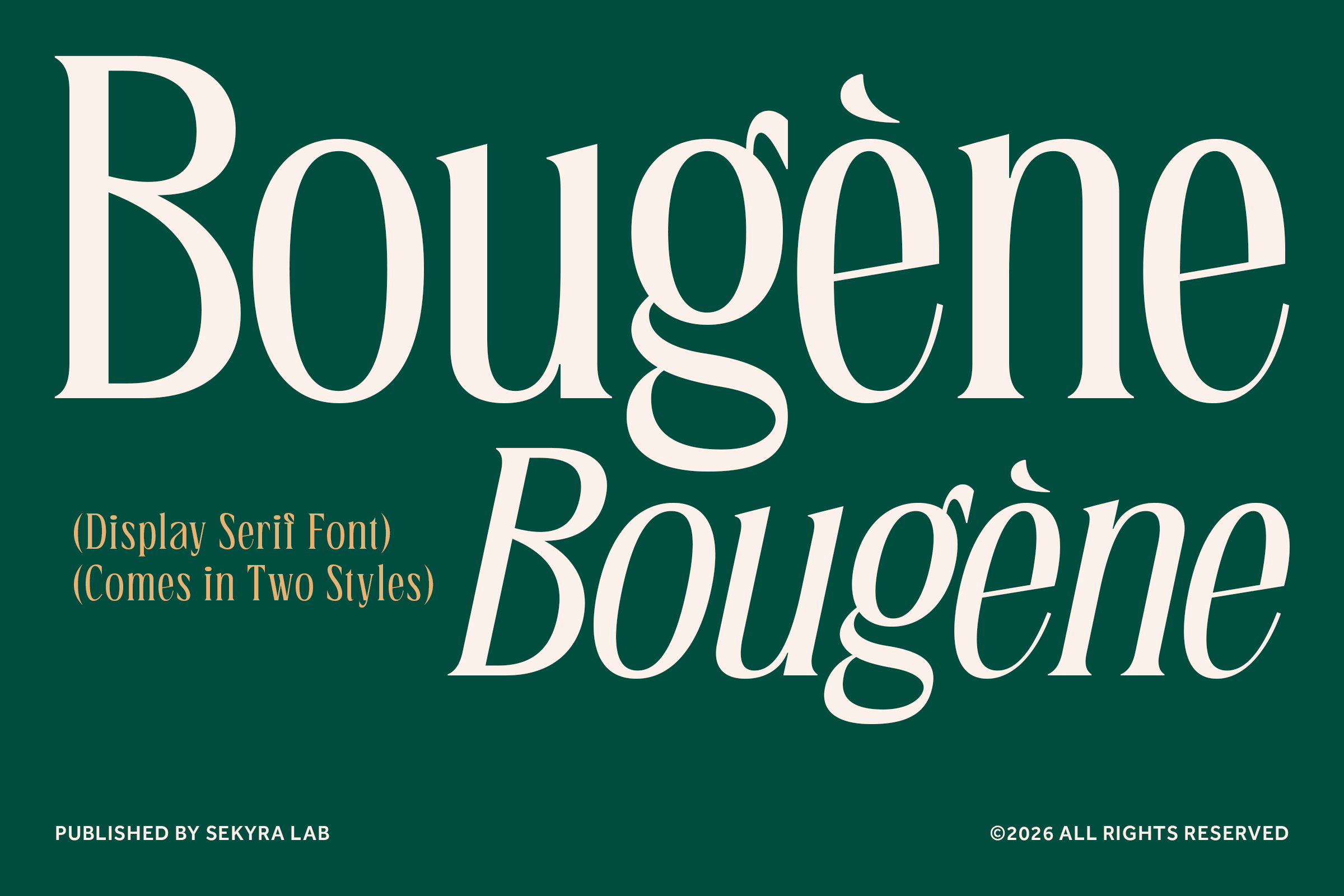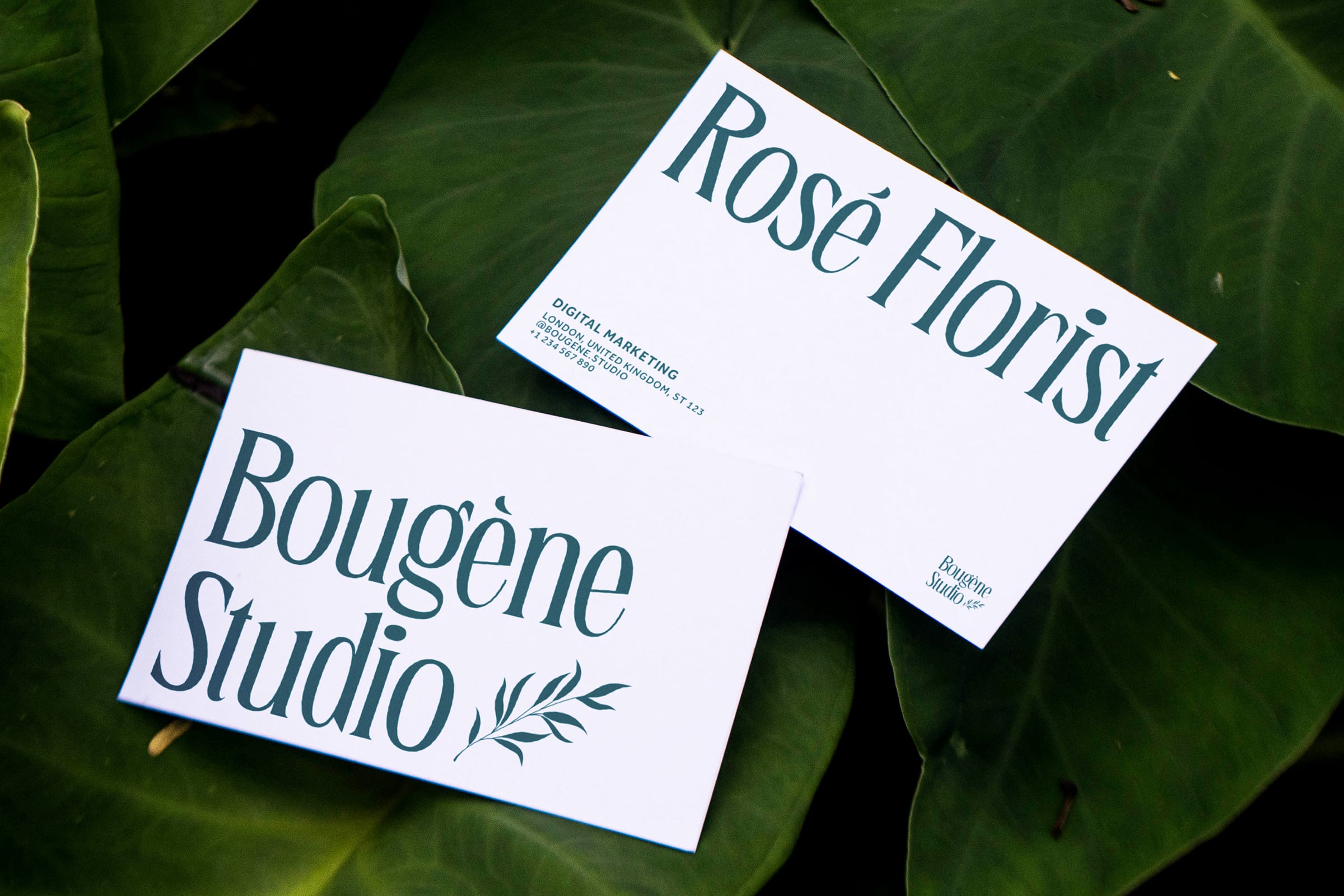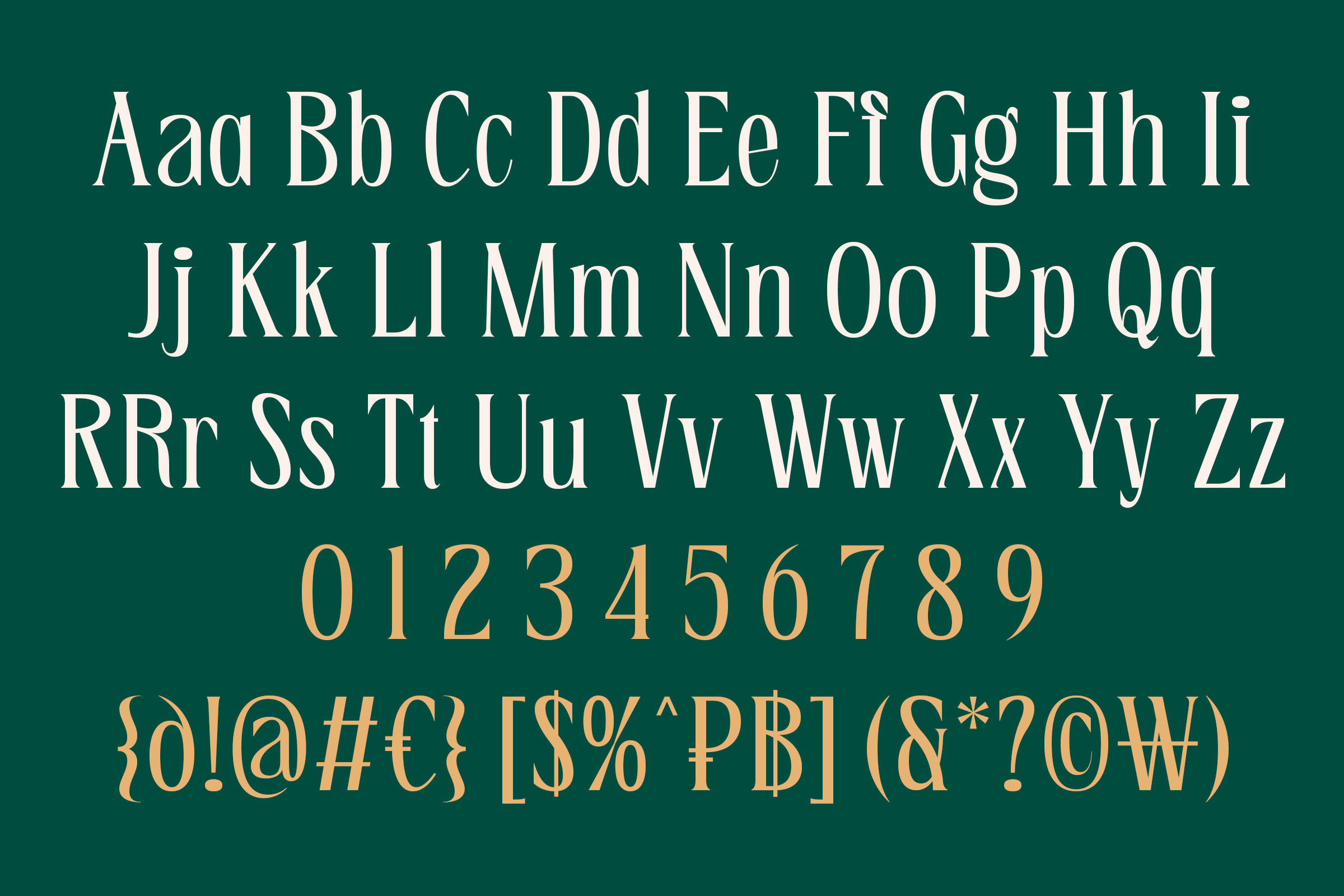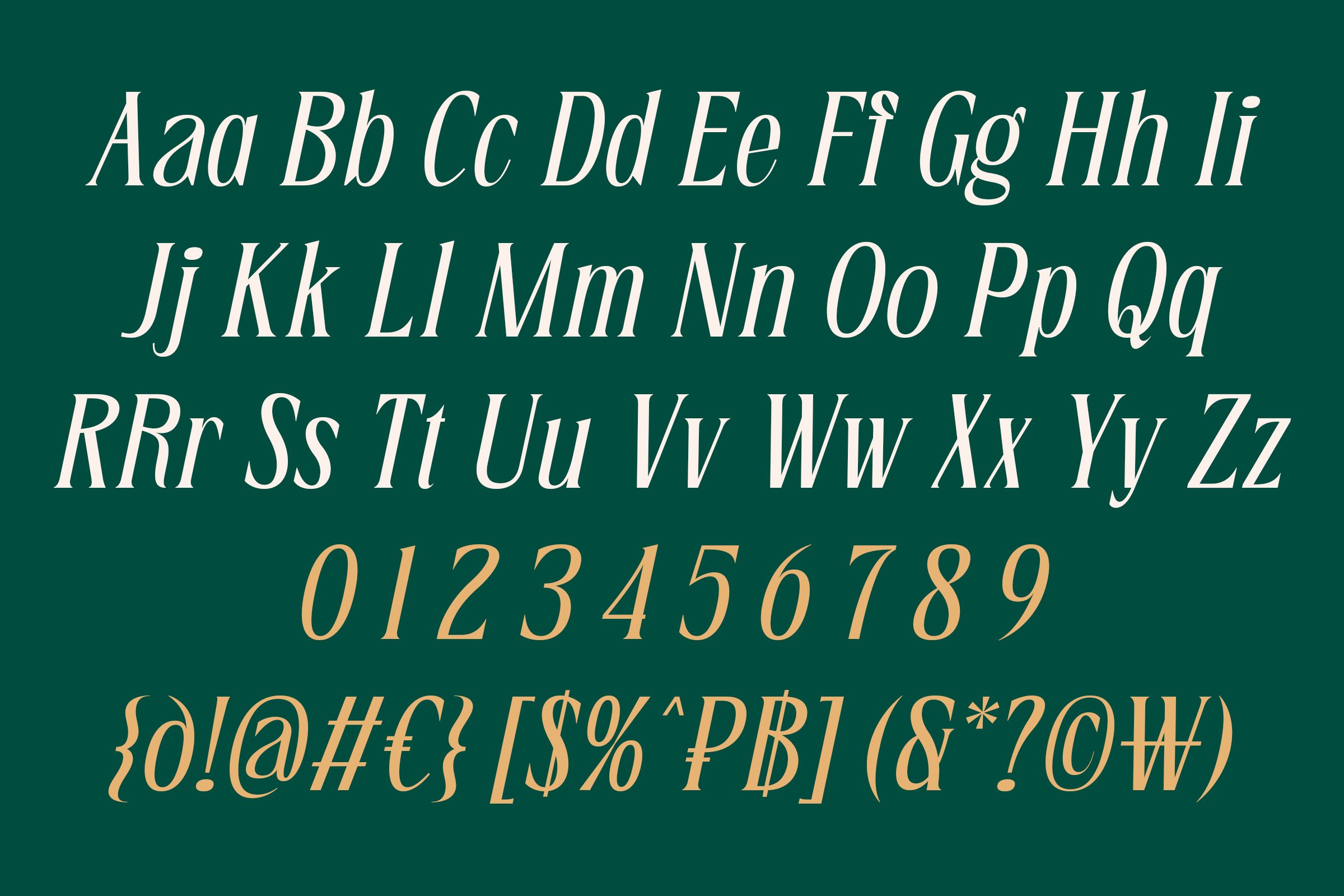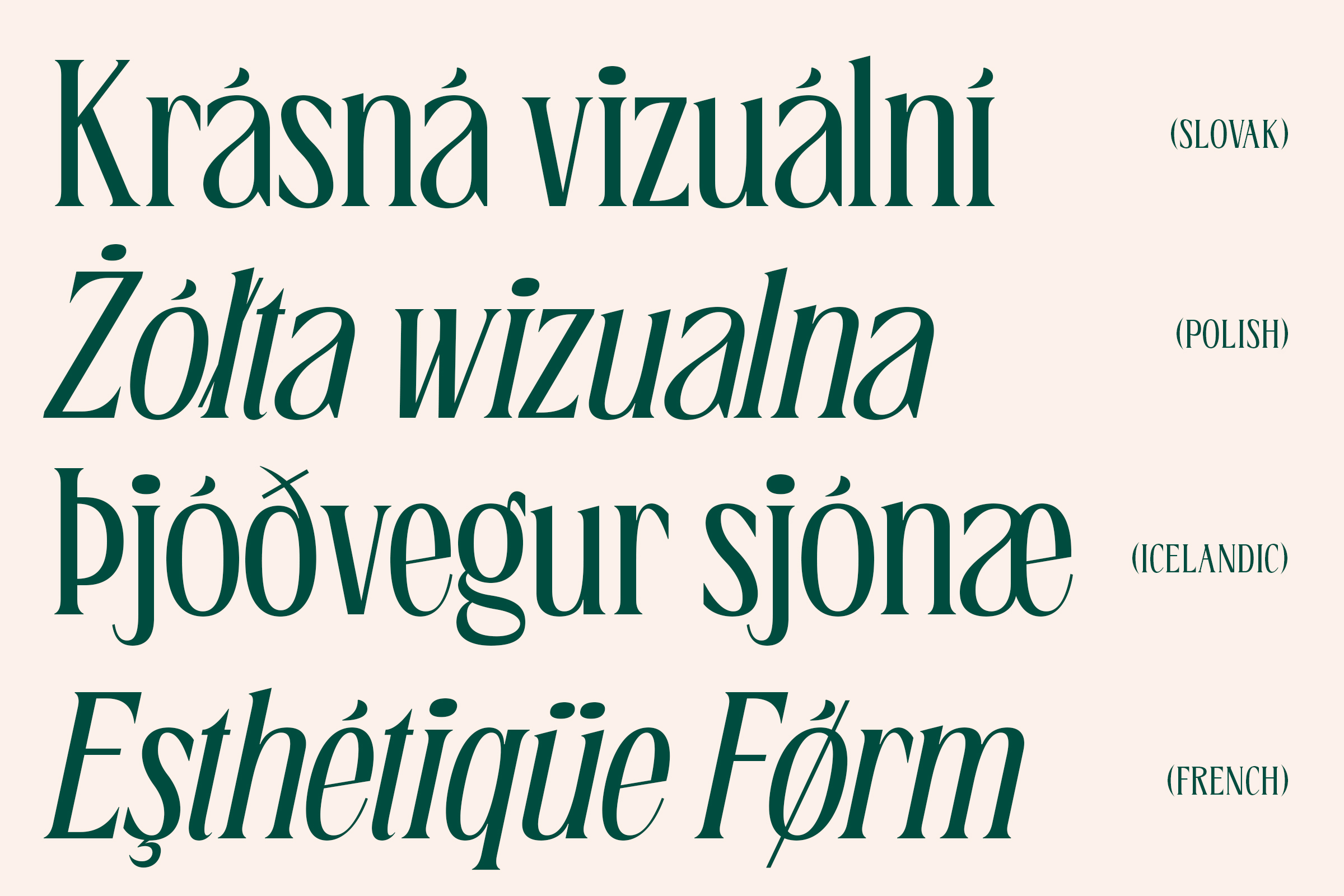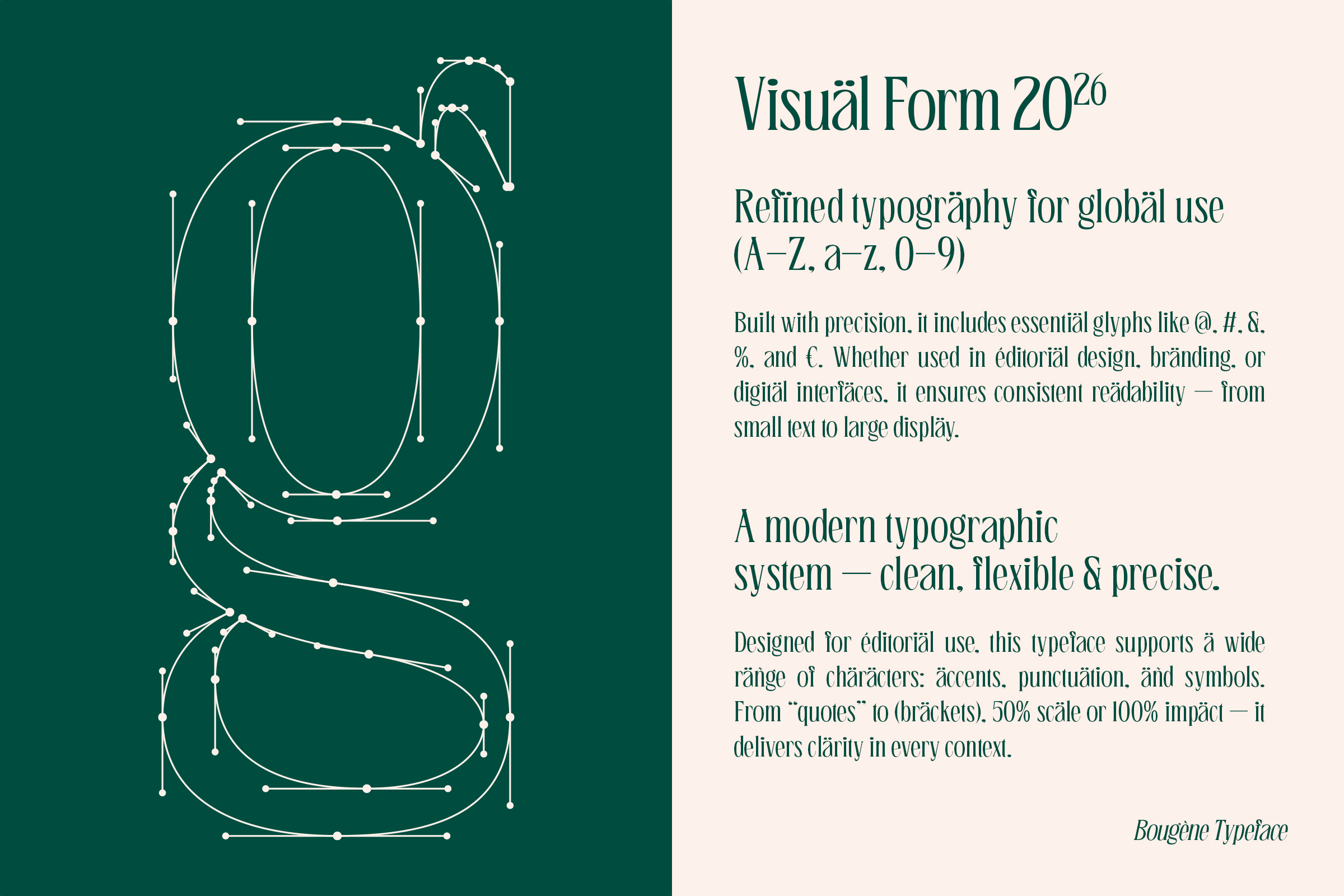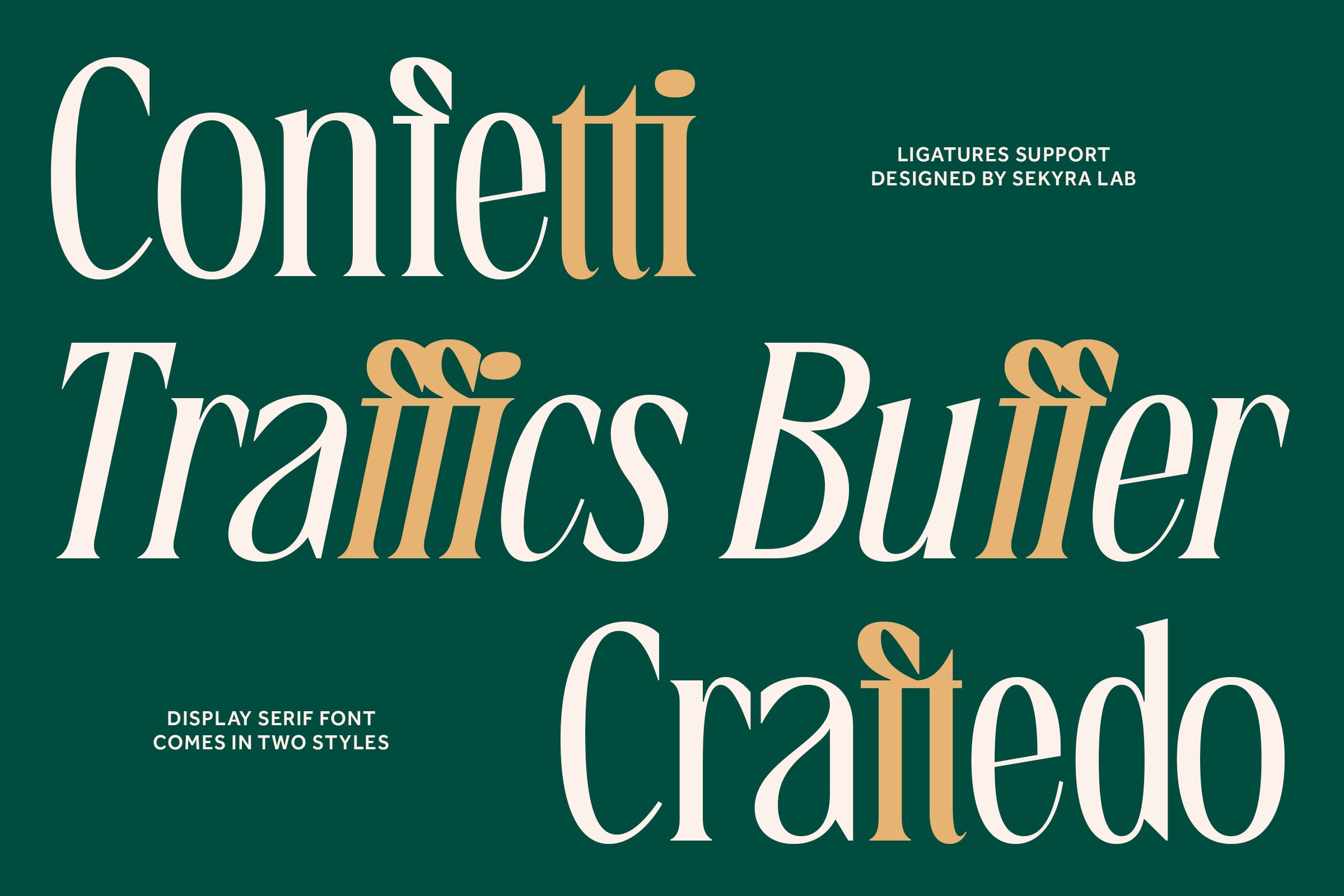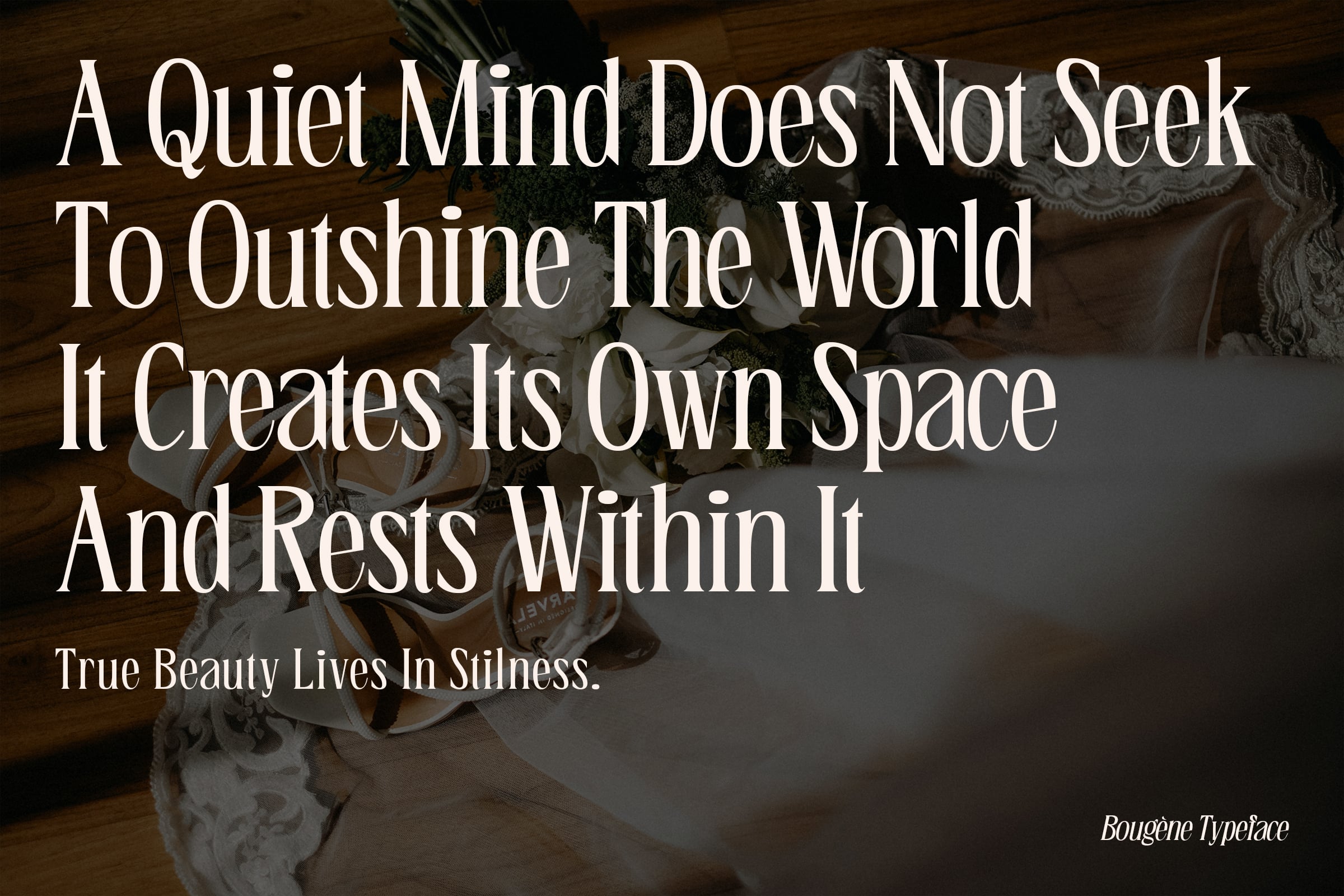
Bougene Font
Bougène is a refined display serif font designed to bring elegance, sophistication, and modern luxury into your typography. With its graceful curves, high-contrast strokes,..and distinctive letterforms, Bougène delivers a premium aesthetic perfect for high-end visual projects.
This typeface comes in two styles: Regular and Slanted, allowing you to create dynamic and expressive compositions while maintaining a consistent elegant tone. The slanted version adds a subtle sense of movement and sophistication, making it ideal for editorial and branding applications.
Bougène features carefully crafted letterforms with unique details, including stylish terminals, smooth transitions, and refined proportions. The overall design blends classic serif foundations with a contemporary twist, resulting in a timeless yet fresh appearance.
* 2 Styles (Regular, Slanted)